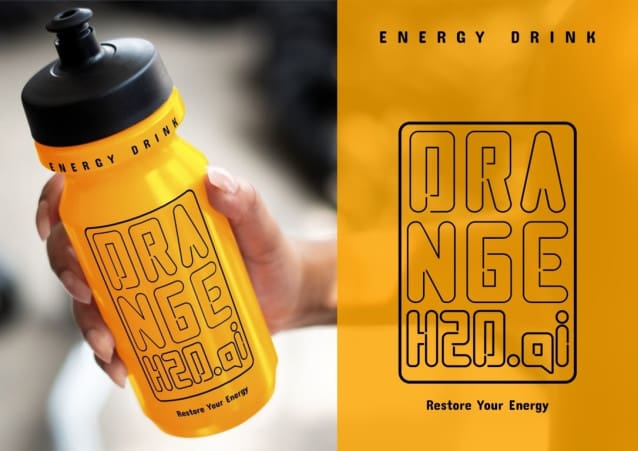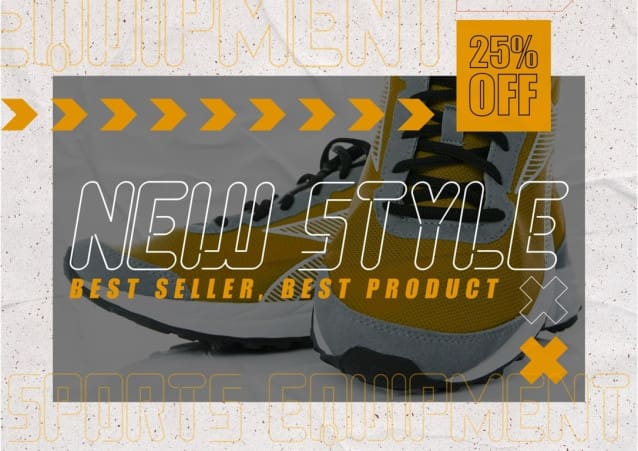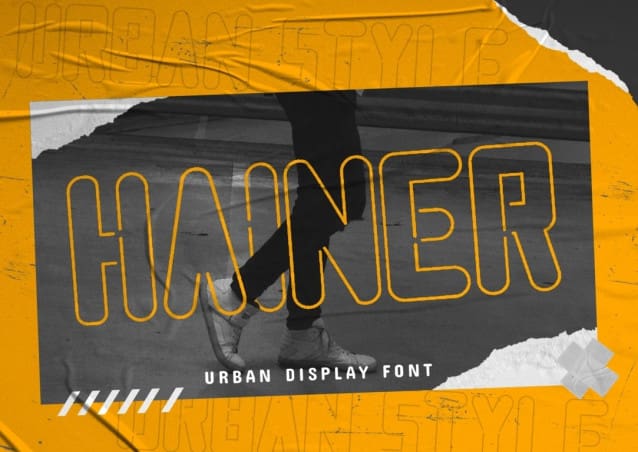
Hainer Display Font
Hainer Display Font, an urban sans serif font that captures the raw energy of streetwear, hip-hop culture, and the vibrant essence of youth. This typeface is meticulously crafted to leave a lasting impression, whether you’re designing attention-grabbing posters, dynamic magazine layouts, impactful brand logos, captivating sleeve covers, enticing party flyers, motivational quotes, or trendy text overlays on any background image. Embrace the undeniable allure of HAINERS as it injects your designs with a cutting-edge appeal and modern flair. Let this font become the voice of urban expression, elevating your creations and making a bold statement that resonates with the spirit of the streets. Unleash the urban power of HAINERS and witness your designs come to life with an electrifying energy.